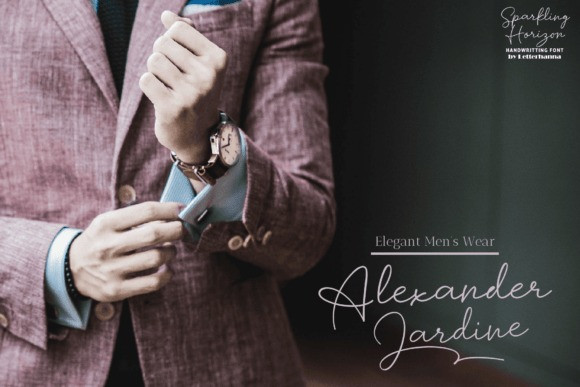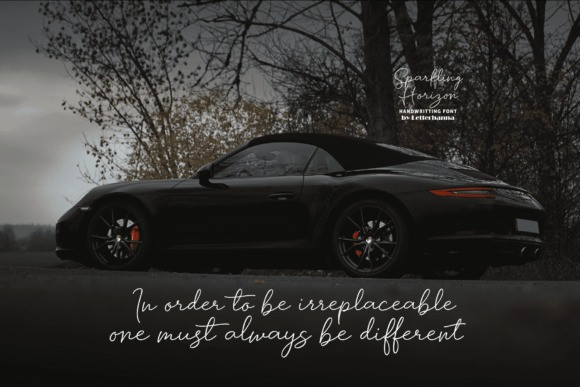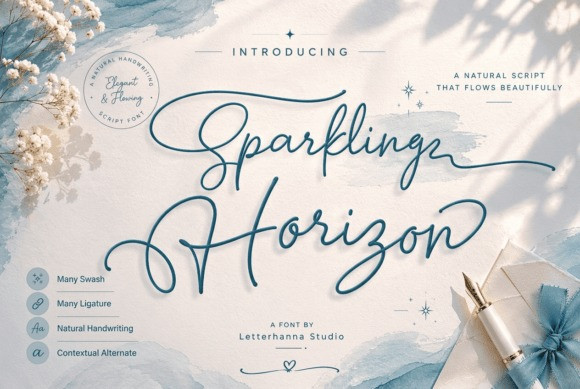
Sparkling Horizon Font
Sparkling Horizon Font is a handwritten script font born from the quiet magic of golden hour — when light dances across the sky and everything glows. Each letterform flows with natural rhythm and graceful energy, designed to feel like ink on paper, alive and personal.
With over 33 OpenType ligatures, 30 underline swashes, and a full set of ornaments and alternates, this font gives your designs a warm, authentic handcrafted soul. Multilingual support, TTF/OTF/WOFF formats, and easy swash access make it as practical as it is beautiful.
Perfect for wedding invitations, brand logos, product packaging, quote graphics, and boutique stationery. Wherever your creativity takes you, Sparkling Horizon lights the way.